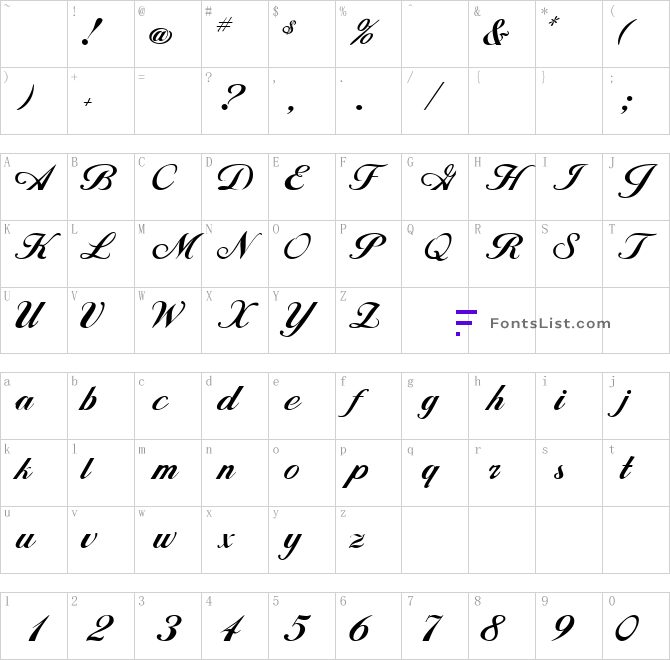
- Font Name:AL Libretto
AL-Libretto.ttf is a very beautiful artistic font, AL-Libretto.ttf is widely used in the design and printing of various books and pictures,AL-Libretto.ttf has a strong visual impact,AL-Libretto.ttf is a commonly used font in newspapers, magazines and books, and is used in posters, e-commerce Poster design, store design, logo design, font design and other fields.AL-Libretto.